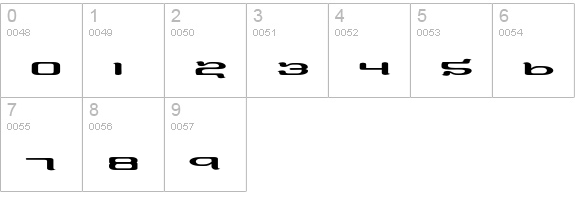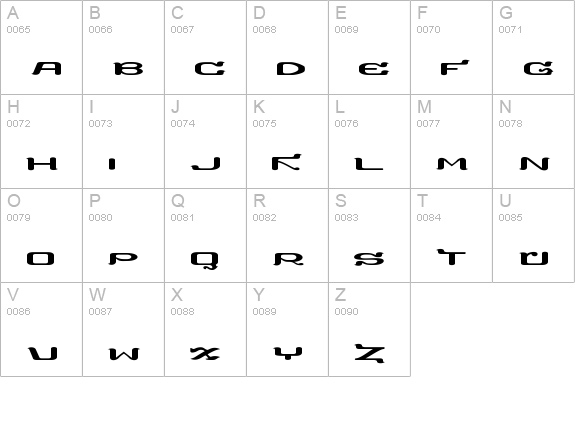
Montenegro Font Details
Introducing Montenegro font - a sleek and modern typeface that exudes sophistication and elegance. With its clean lines and stylish curves, Montenegro is perfect for a wide range of design projects, from branding to editorial layouts. This versatile font is sure to make your text stand out and leave a lasting impression on your audience. And the best part? Montenegro font is completely free to download at FontsMarket.com. With just a few clicks, you can add this stunning typeface to your collection and start using it in your designs right away. Don't miss out on this opportunity to elevate your work with Montenegro font - download it now and let your creativity soar!